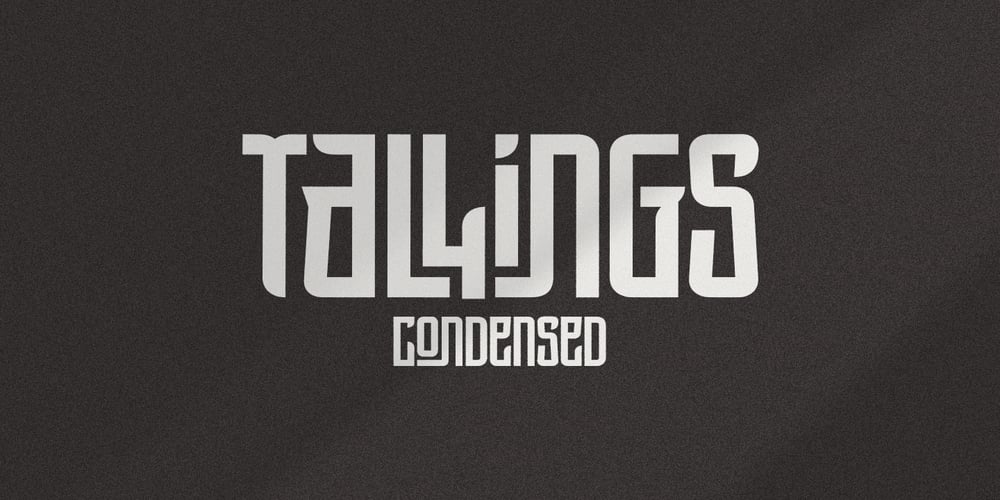
Tallings Font Family was designed by Jarnawi Saja and published by Grontype. Tallings contains 1 styles and family package options. TALLINGS is a bold modern, urban-condensed font, inspired by street urban poster that combines the classic and modern style. TALLINGS will be best suited for creating logotypes, branding, headlines, corporate identities, Invitation card, and other graphic design elements. TALLINGS Features: Bold condensed font Punctuation & Characters Ligatures and alternates Glyphs included superscript & Symbol Currencies Multilingual Thankyou for picking up this font. Happy creating!Regard, Grontype